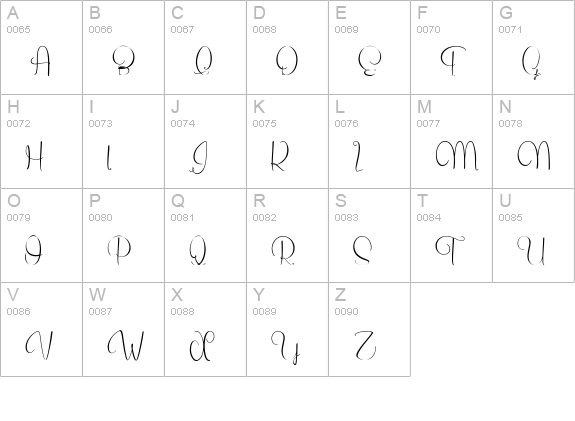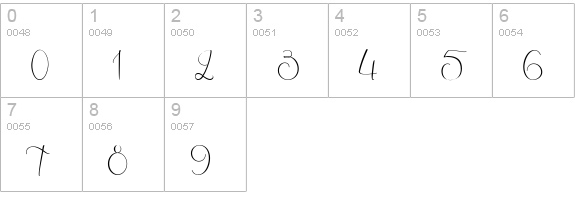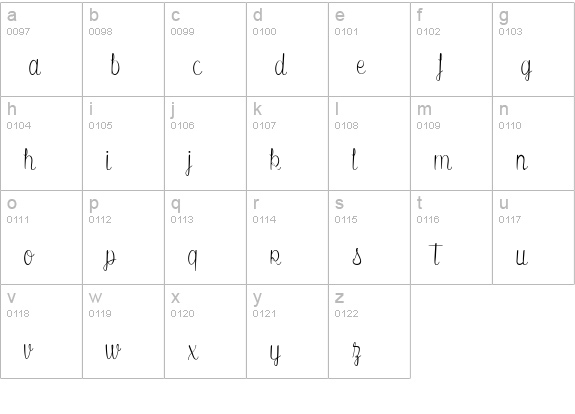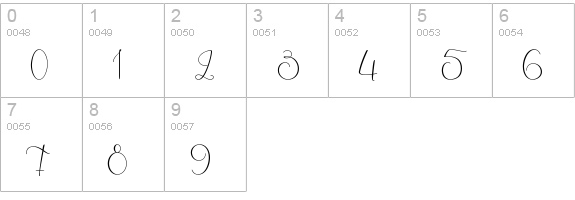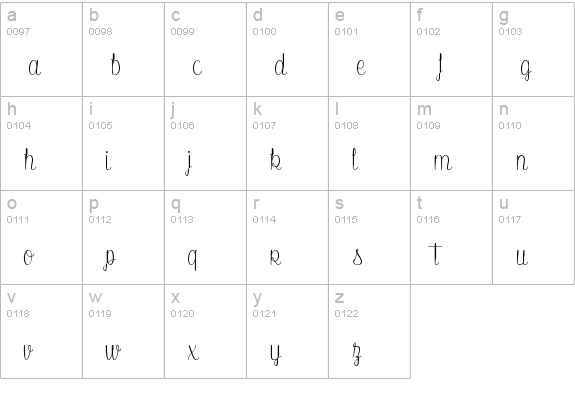
Secret of the Octopus Font Details
Secret of the Octopus is a free for personal use font in the Script > Calligraphy category. It has been downloaded 608 times and is available for Windows, Mac and Linux.
Introducing the mesmerizing Secret of the Octopus font, a true testament to the mysterious and captivating beauty of the deep sea. With its intricate and fluid letterforms, this font embodies the grace and agility of the enigmatic octopus, making it perfect for any design project that demands a touch of intrigue and fascination. Secret of the Octopus font boasts a unique blend of elegance and playfulness, effortlessly capturing the essence of the ocean's most enigmatic creature. Each letter is carefully crafted to mimic the graceful movements of the octopus, creating a visually stunning and harmonious typography experience. This font is not only visually stunning, but it also offers unparalleled versatility. Whether you're designing a striking logo, creating eye-catching headlines, or crafting an enchanting invitation, Secret of the Octopus font will effortlessly elevate your designs to new depths of creativity. But what makes Secret of the Octopus truly extraordinary is that it is freely available for download at FontsMarket.com. That's right, you can now unleash your creativity without any limitations or restrictions, and bring the captivating allure of the octopus to your projects with ease. So dive into the depths of design possibilities with Secret of the Octopus font. Let its flowing curves and intricate details transport you to an underwater world where creativity knows no bounds. Download this captivating font for free at FontsMarket.com and let your imagination run wild. Discover the secret to captivating typography today.